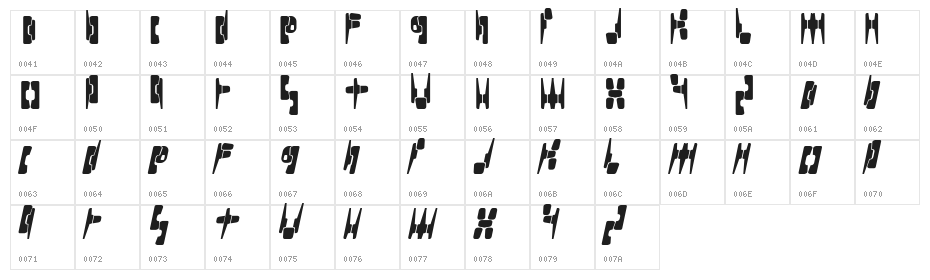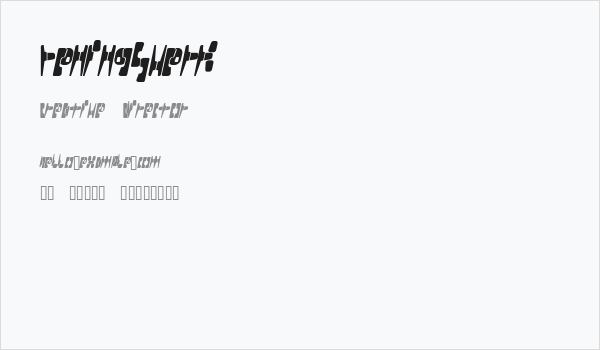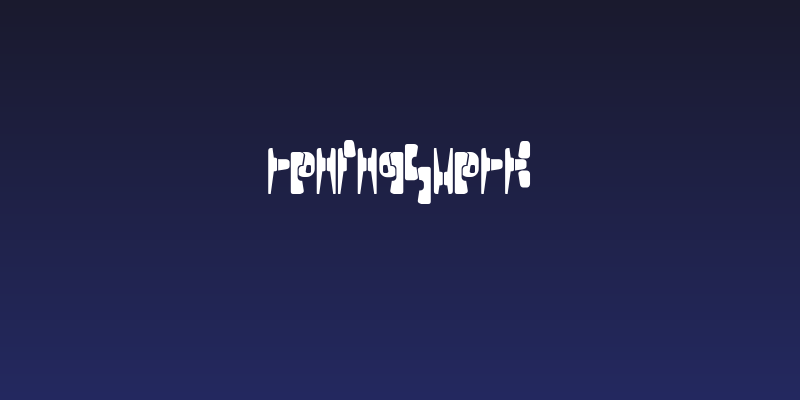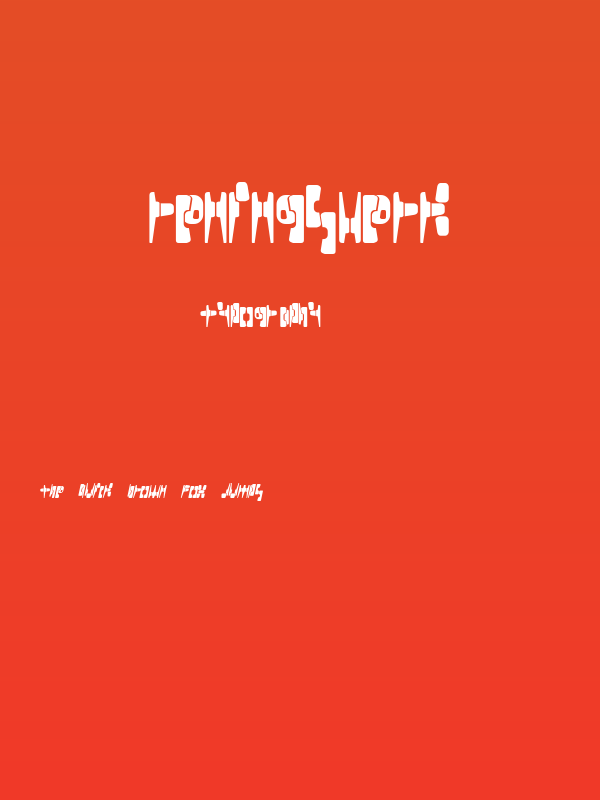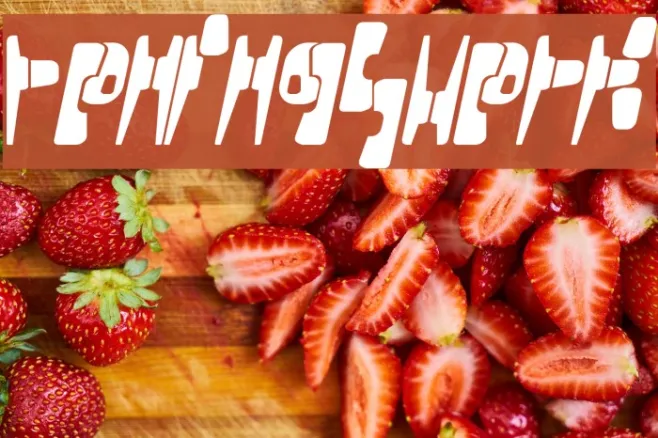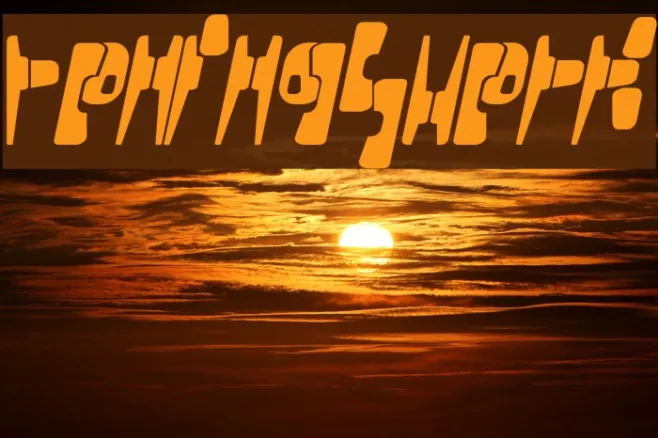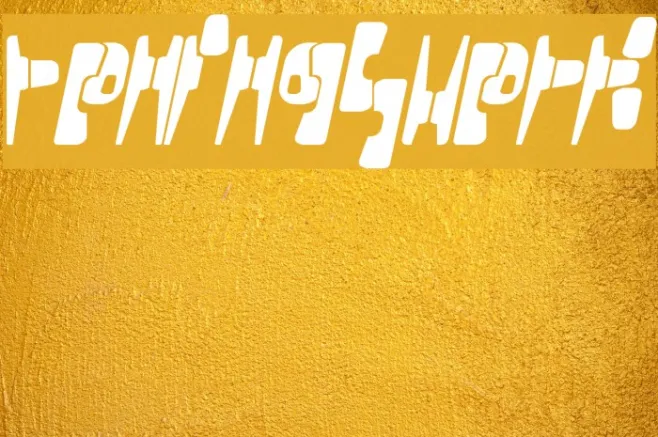
Reningsverk Font
Reningsverk Description
This font features a bold and striking design, characterized by its thick, block-like shapes and sharp, angular edges. The letters are heavily stylized, with a futuristic and avant-garde appearance that makes them stand out. The uppercase and lowercase letters share a consistent design language, with a unique interplay of solid and negative spaces. The numbers and special characters maintain the same bold and geometric style, ensuring a cohesive look across all glyphs. This font's distinctive style is ideal for projects that require a modern and edgy aesthetic.
RENINGSVERK UPPERCASE
RENINGSVERK LOWERCASE
RENINGSVERK OTHER CHARS
| Proposed Projects | Ideal for sci-fi themed posters, album covers, video game titles, and modern branding projects. |